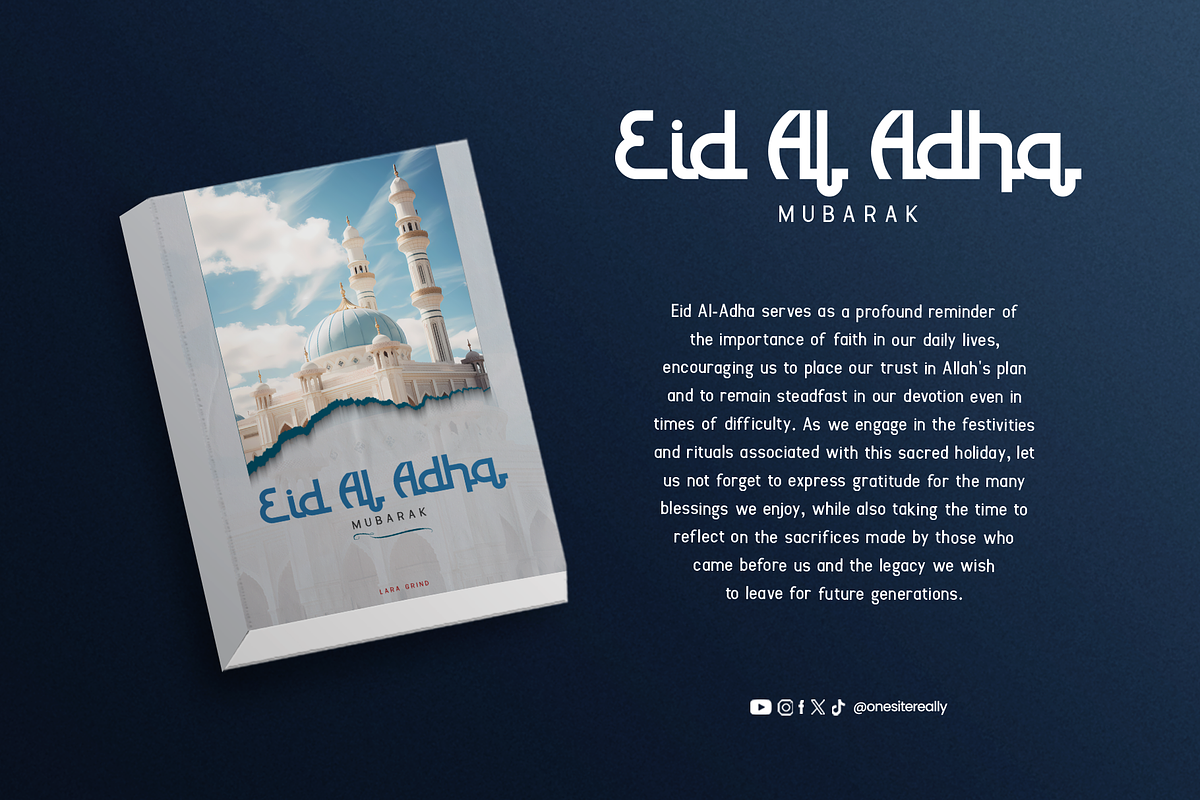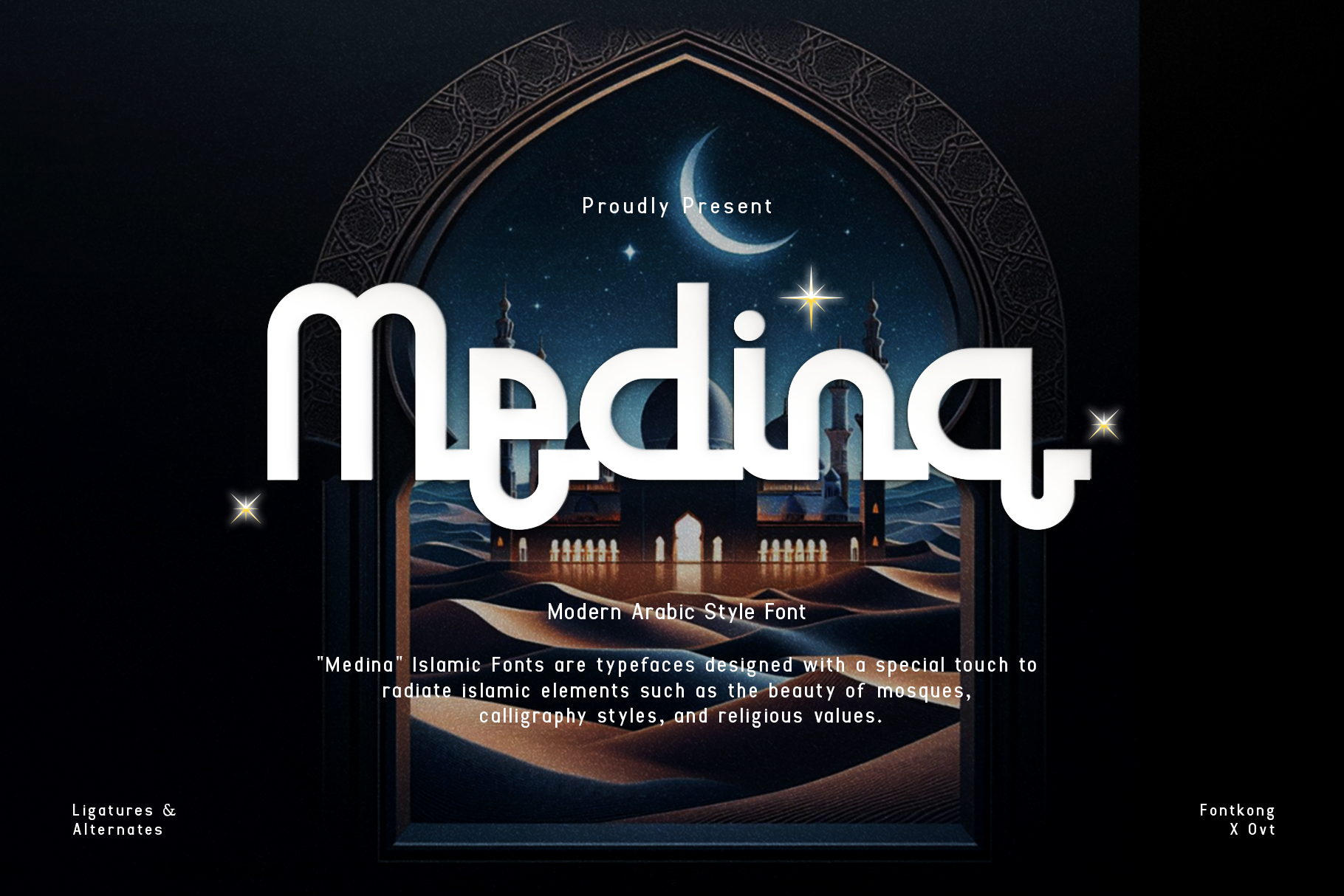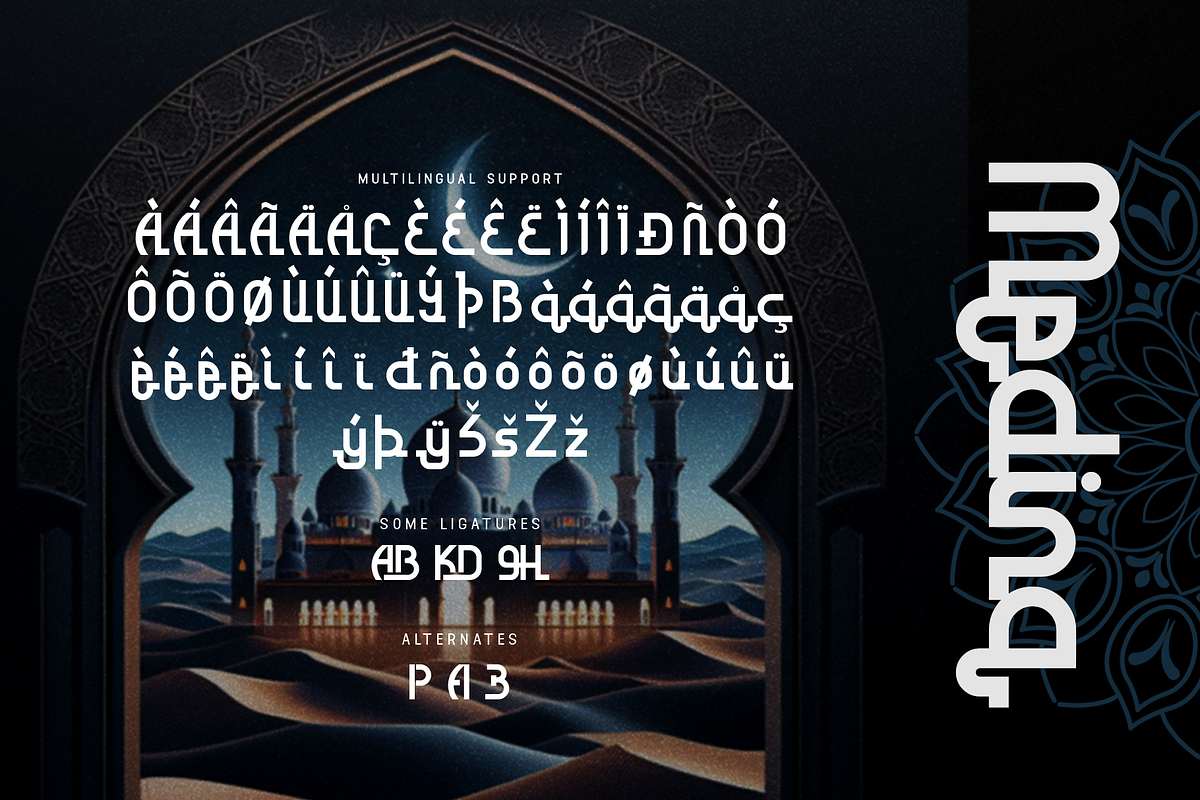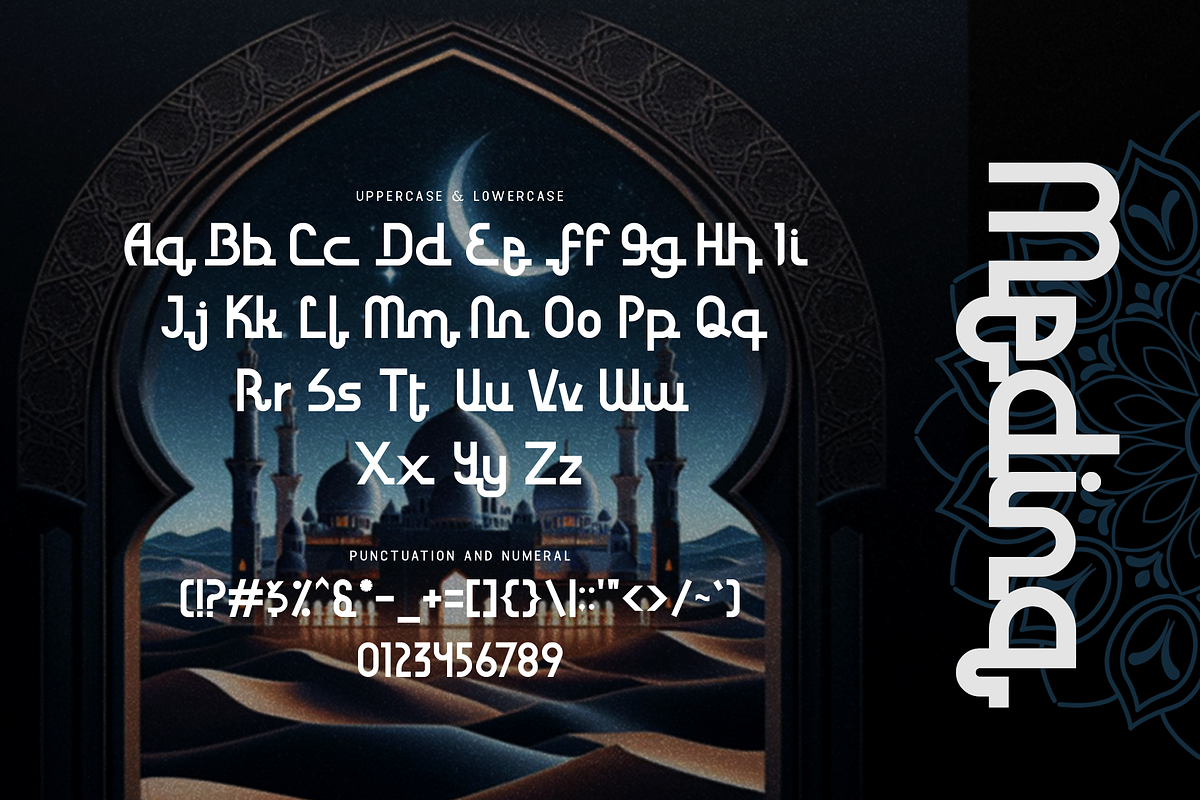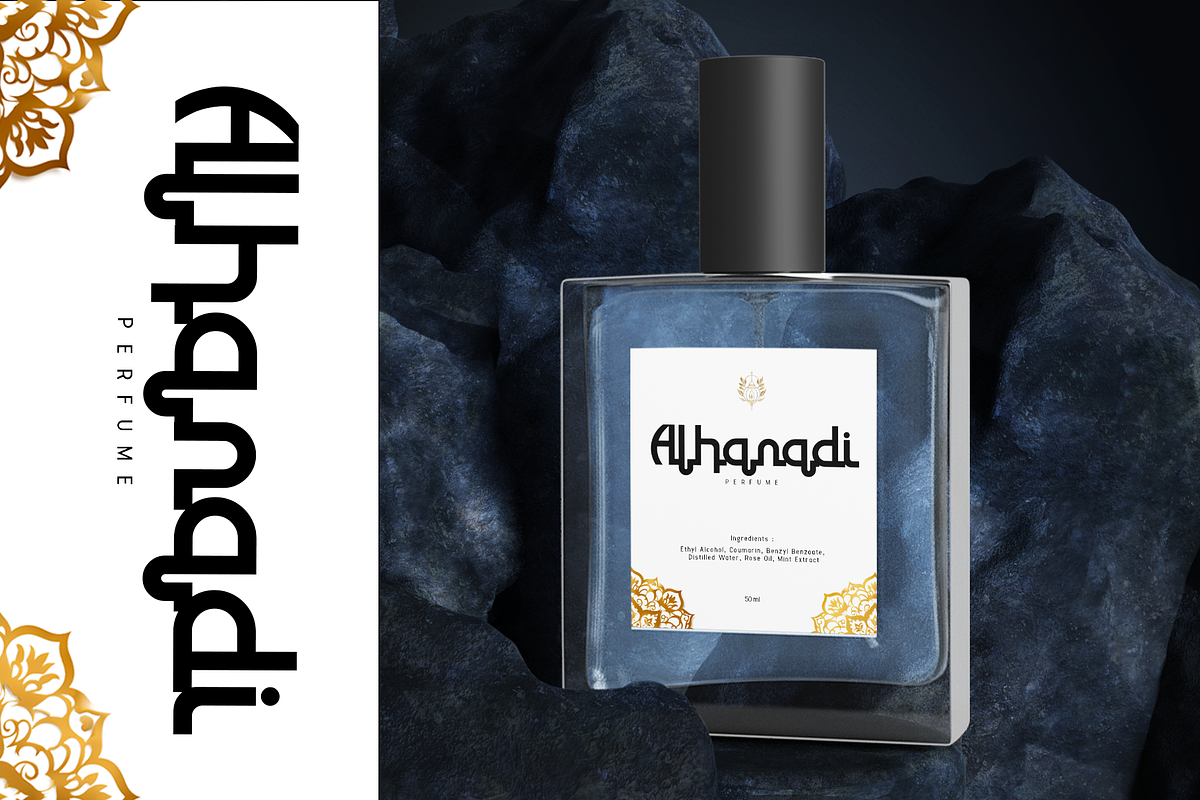
Medina - Contemporary Arabic Font
Medina is a contemporary Arabic-style font with a clean and bold design. It’s ideal for branding, Islamic art, decorative layouts, and cultural projects. Medina brings modern elegance to your typography, making it perfect for creative applications.